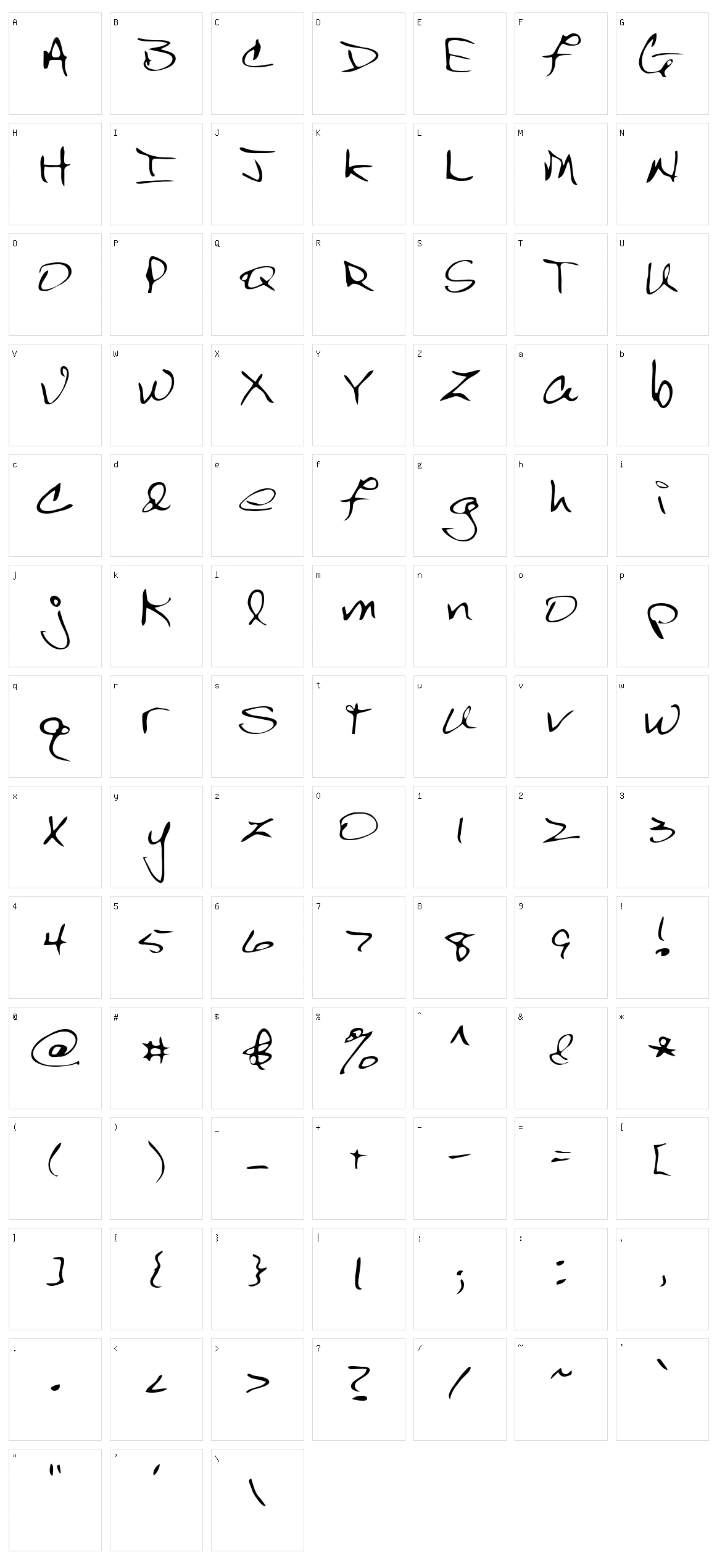
The free font Meamury is carefully designed by Grigoriy Sviridov, showcasing a thoughtful balance of creativity and usability and falls under the Script font style. When you download the ZIP file, it contains only 71.58 KB of font files, making it lightweight and quick to download. Please review the license details below to understand permitted usage and distribution rights. If license information is not available, we recommend using this font for personal projects only or contacting the author directly for commercial usage permissions.